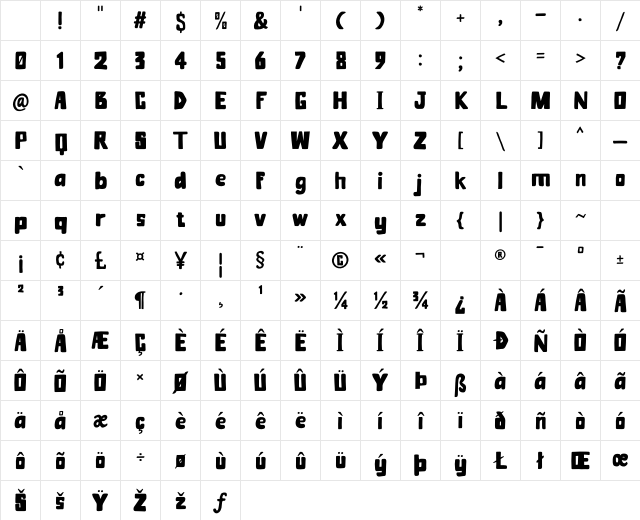
Complete Blok Blokan Regular glyph index. Displaying only characters natively supported by Blok Blokan Regular font.
Blok Blokan is a composed and adaptable typeface that performs quietly and consistently across a wide range of design contexts.